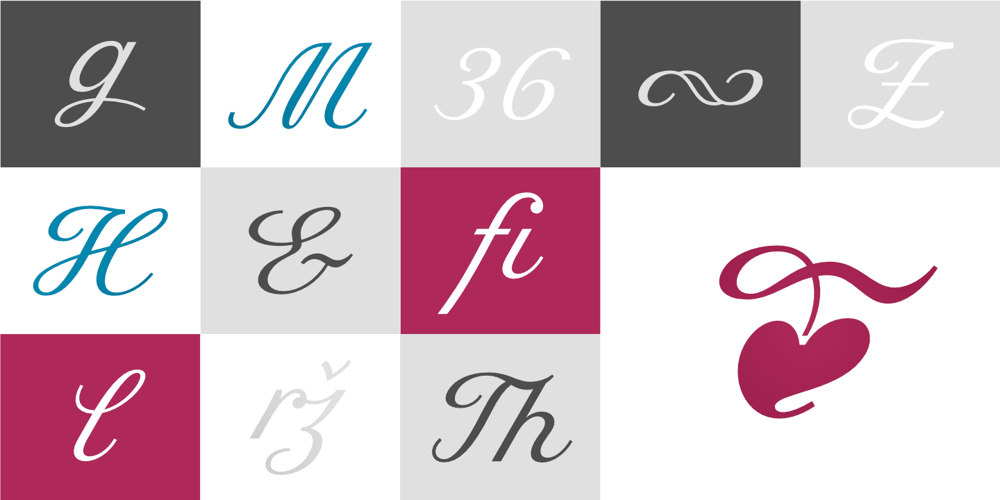
Rusulica Font Family was designed by Marin Santic and published by Type Fleet. Rusulica contains 1 styles and family package options. Rusulicapure luxuryRusulica script is designed to express handwriting in a modern and glamorous fashion. Its letter construction is pure and fluid. Because of its ornamental and playful design, it offers plenty of possibilities.Rusulica has a high contrast and there is an alternate for almost every capital letter. The typeface’s x-height is bigger than usual and it is constructed at a 30° angle.